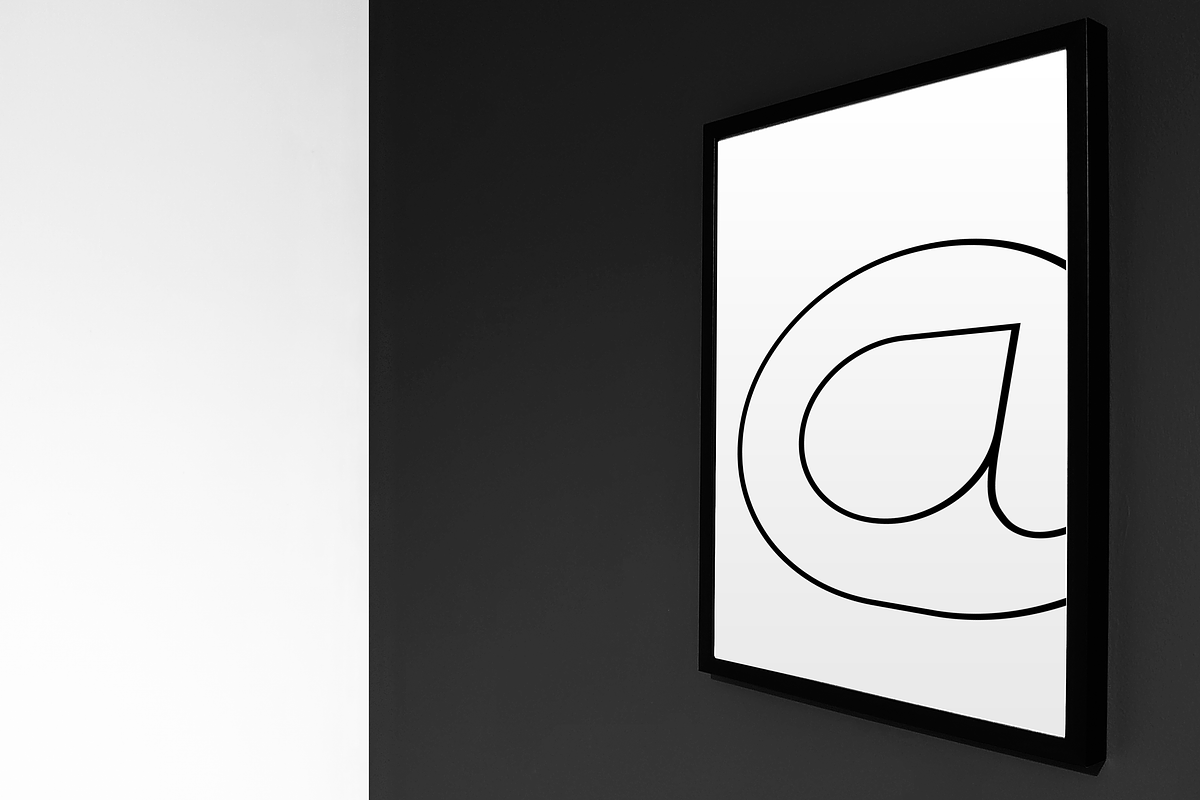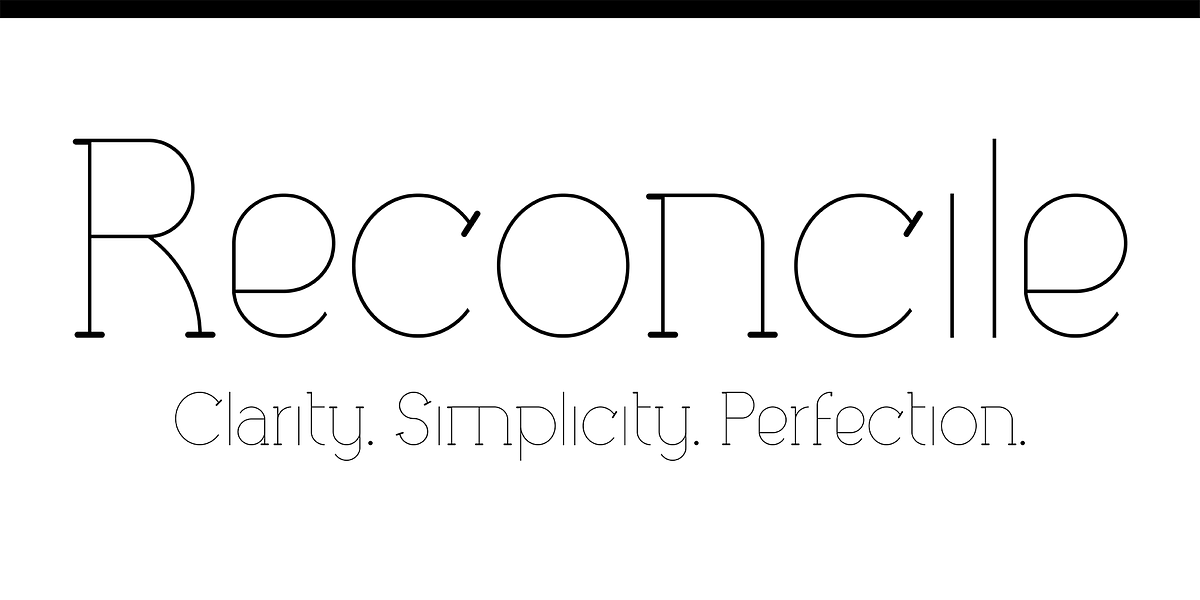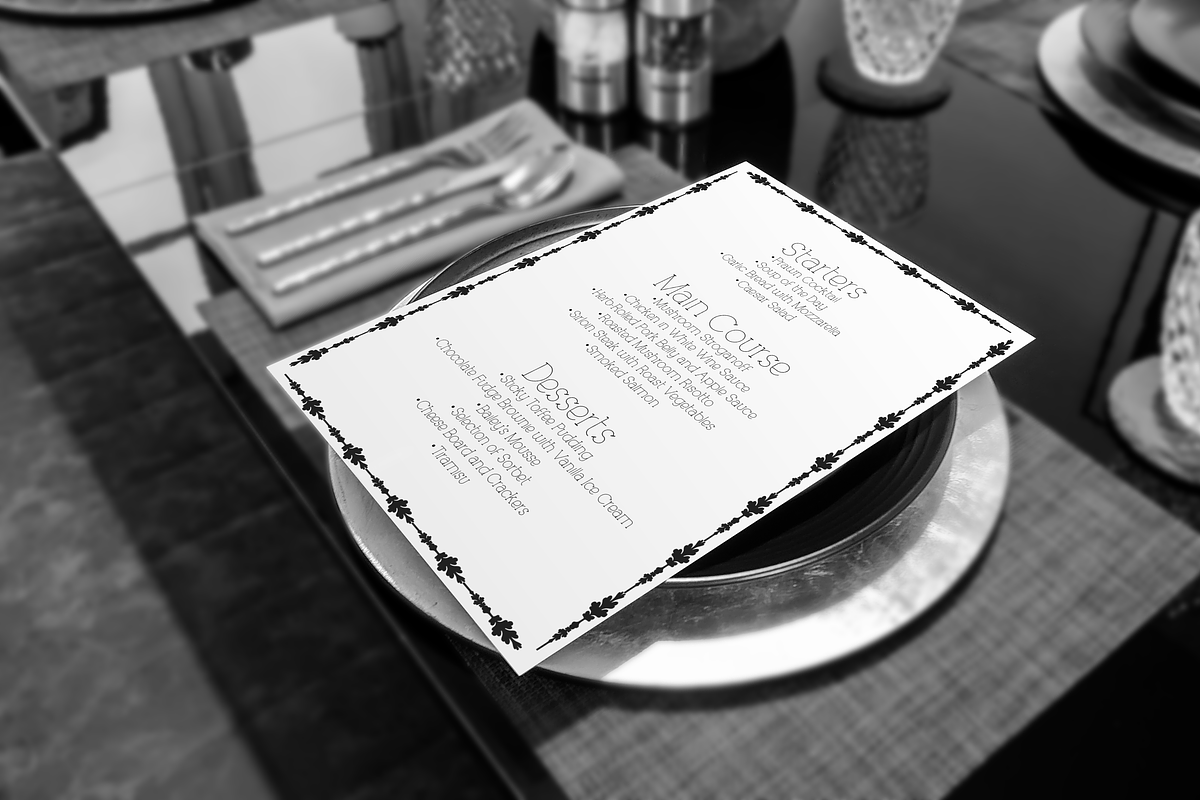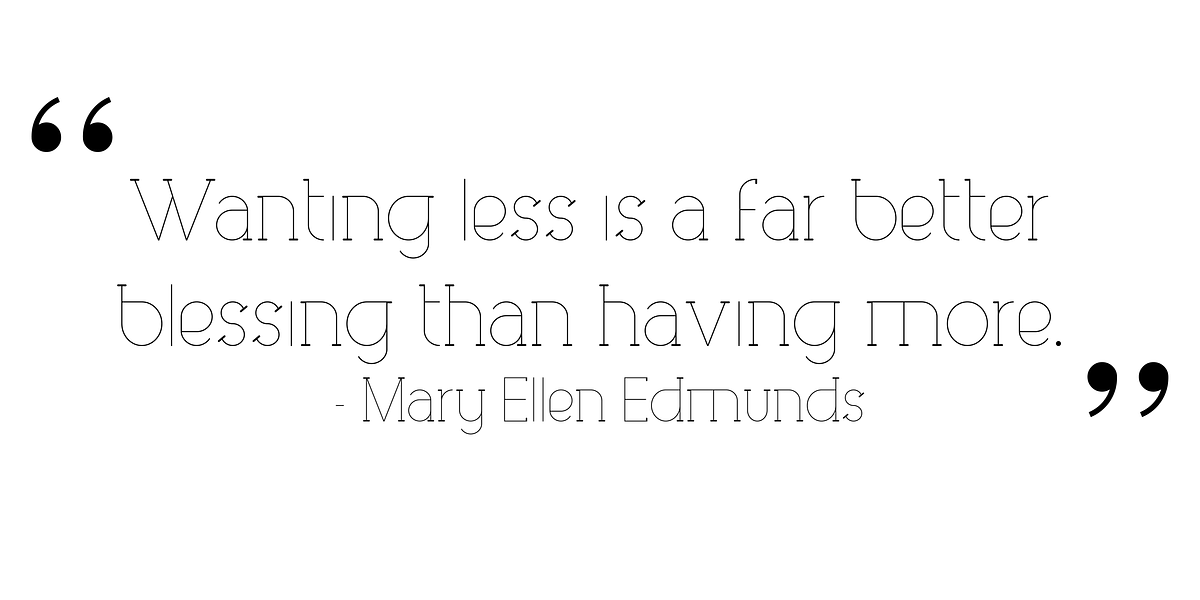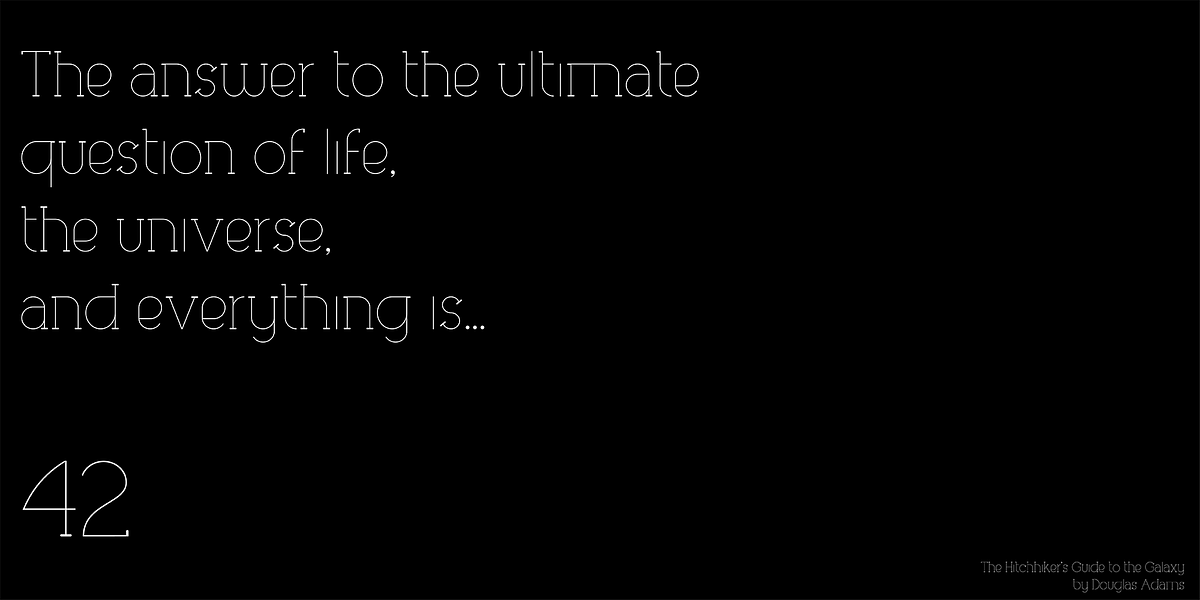
Reconcile
Introducing Reconcile. Characterised by its ultra-light weight, consistent reading, and minimalist attitude. A semi slab serif typeface designed for classy implementations. Understated. Simple. Perfect.